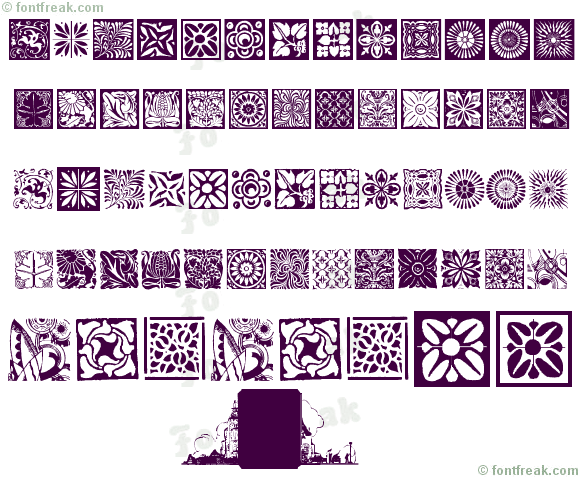
TypoBackgrounds
About TypoBackgrounds
TypoBackgrounds, created by the talented Manfred Klein, is a distinctive decorative font that offers a unique twist on traditional typography. This freeware font belongs to the display category, characterized by its ornate and artistic design that stands out in any setting. The visual characteristics of TypoBackgrounds include intricate patterns and shapes that create an engaging backdrop for text. The stroke weight varies, providing a dynamic contrast that enhances its decorative appeal while maintaining readability.
This font is particularly suited for specific use cases, making it a versatile choice for various design projects. It is perfect for wedding invitations, where its elegant and artistic flair can set a romantic tone. Additionally, TypoBackgrounds works well for movie posters, providing a visually captivating background that draws attention to the title and key details. Restaurant menus can also benefit from this font, adding a touch of creativity that reflects the establishment's atmosphere. Furthermore, it can be utilized in promotional materials for art exhibitions or craft fairs, where the decorative elements resonate with creative themes.
The target audience for TypoBackgrounds includes graphic designers, small business owners, and content creators looking to elevate their projects with a unique typographic touch. Whether crafting marketing materials or personal invitations, this font offers an eye-catching solution that stands out.
What truly sets TypoBackgrounds apart is its ability to blend artistry with functionality. Its intricate designs invite viewers to explore while ensuring that the core message remains clear and engaging. For those seeking to enhance their designs, the TypoBackgrounds font free download presents an excellent opportunity to incorporate this exceptional typeface into their toolkit.